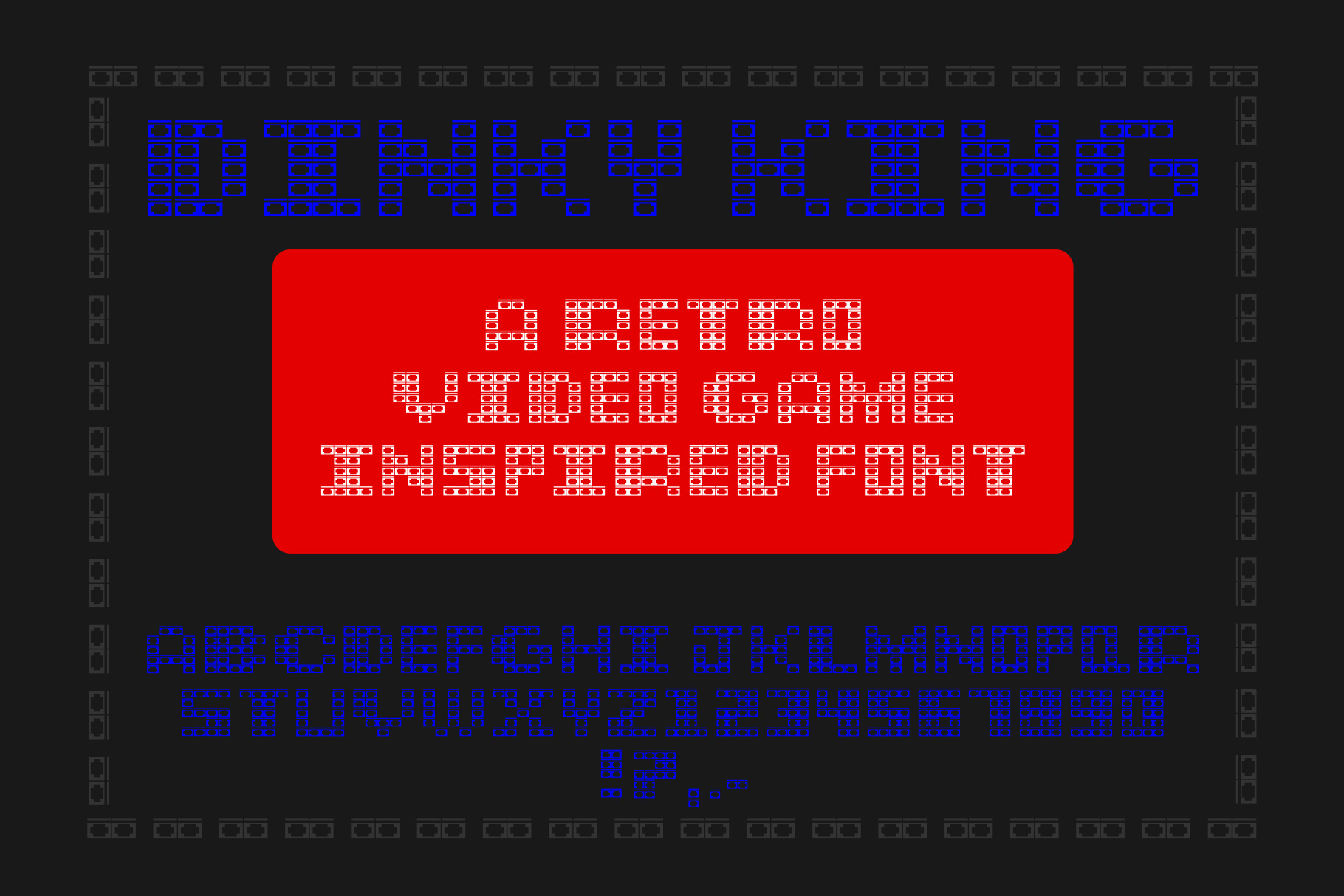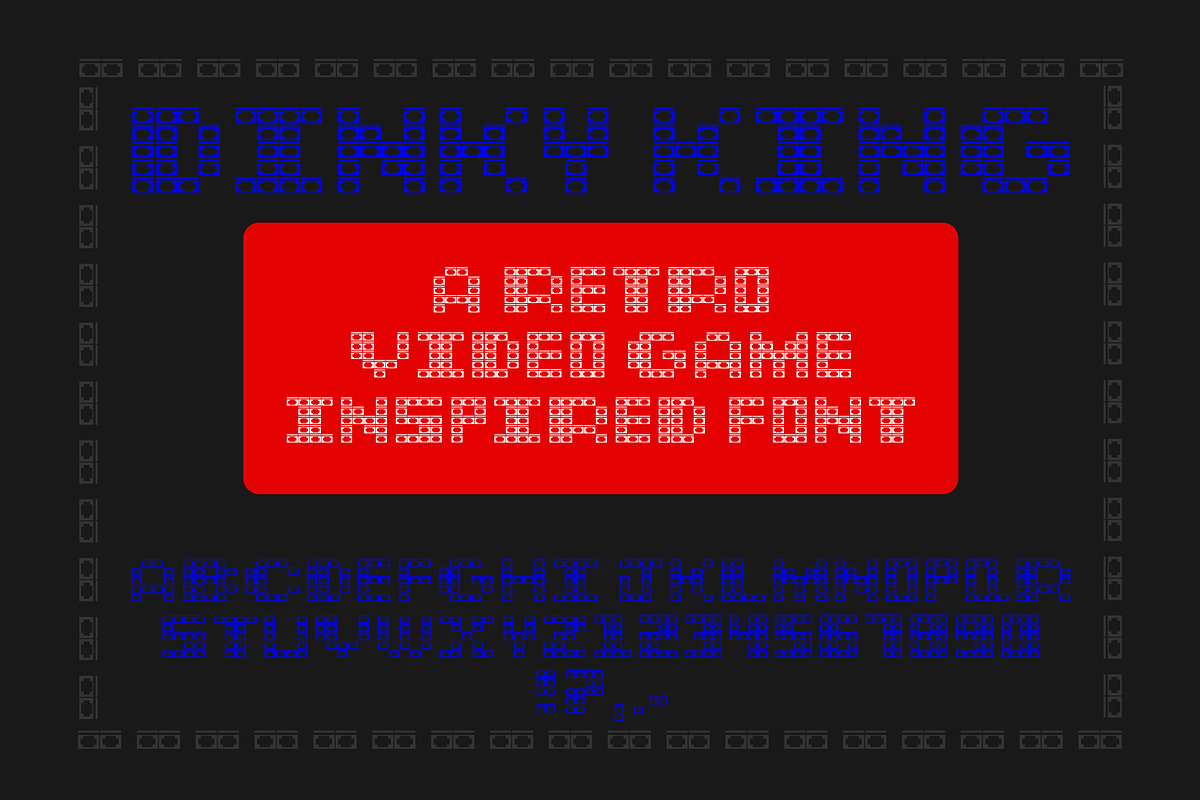
Dinky King - Retro Video Game Font
A retro video game inspired font. Based on a classic, retro video game featuring a rather angry gorilla, a jumping plumber, and a damsel in distress no less. This is the title screen font for this classic video game. Features capital letters A-Z with a few variations thrown in, just like the original, numbers 1-0, !, ?, comma, period, and dash.